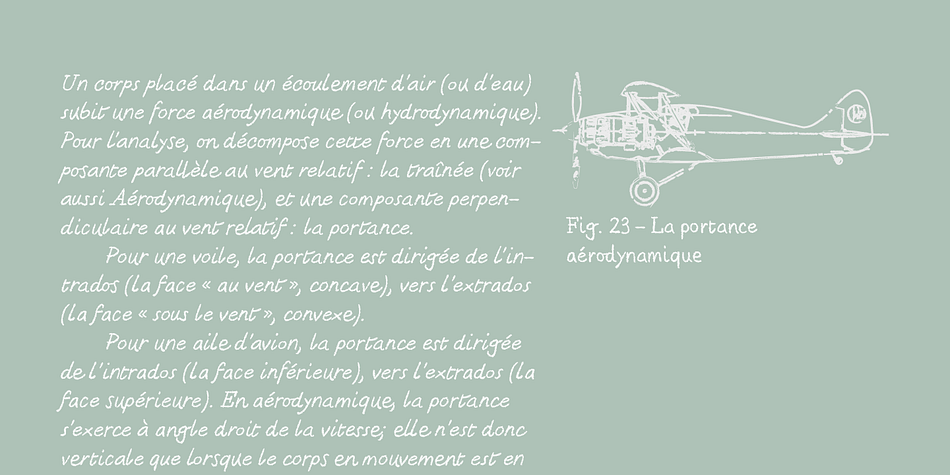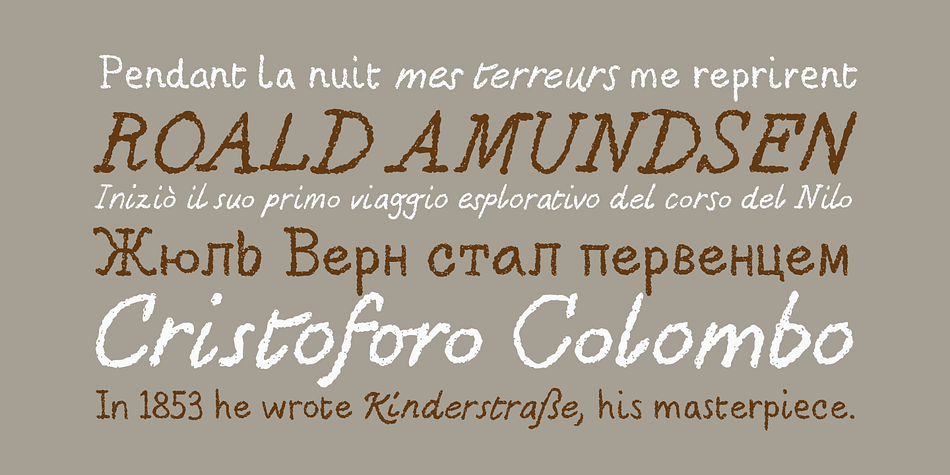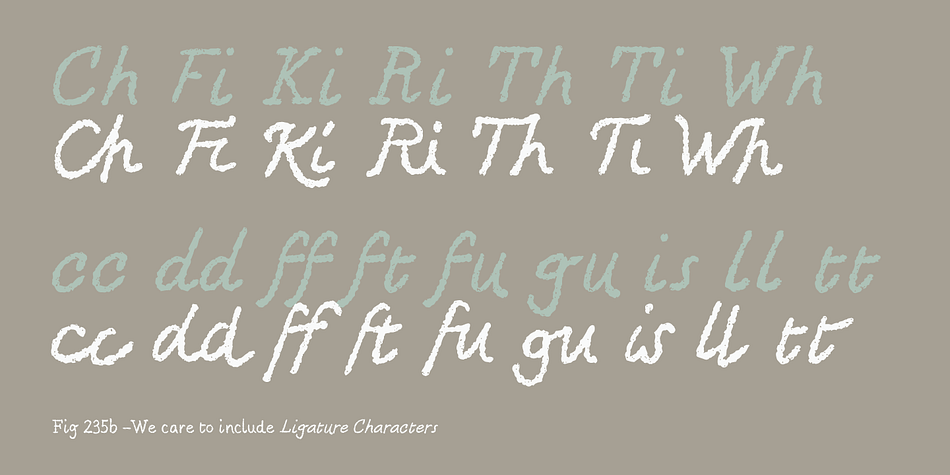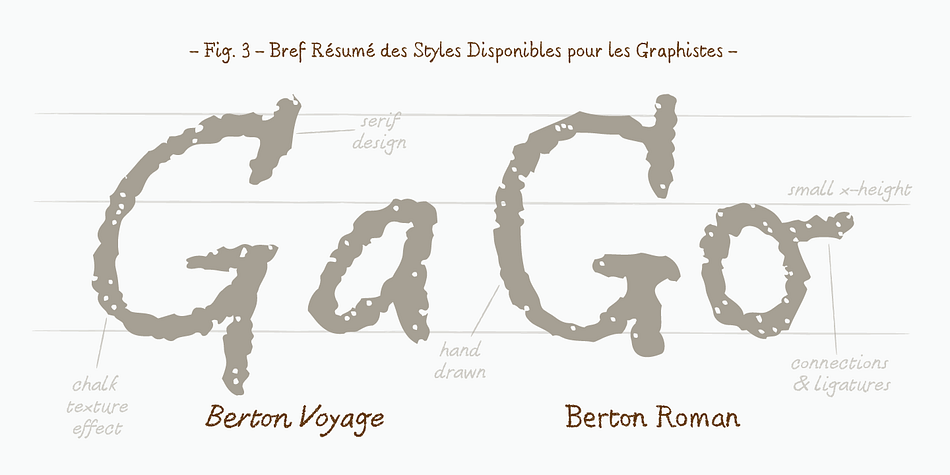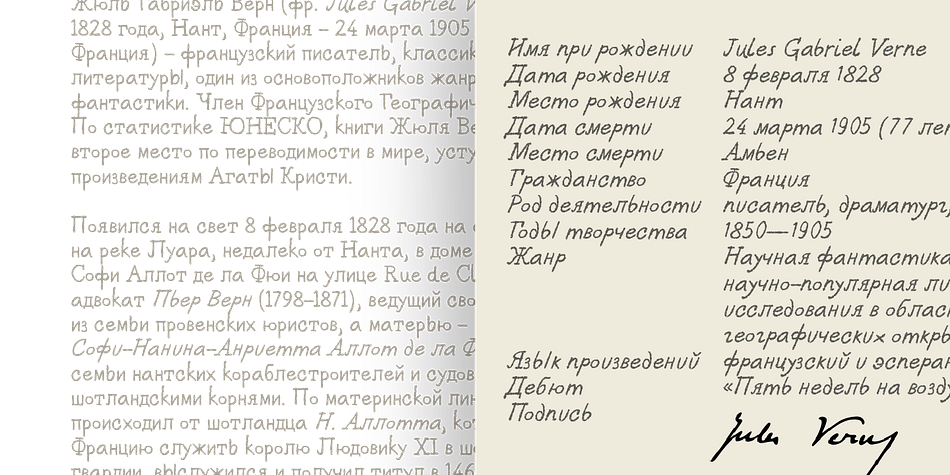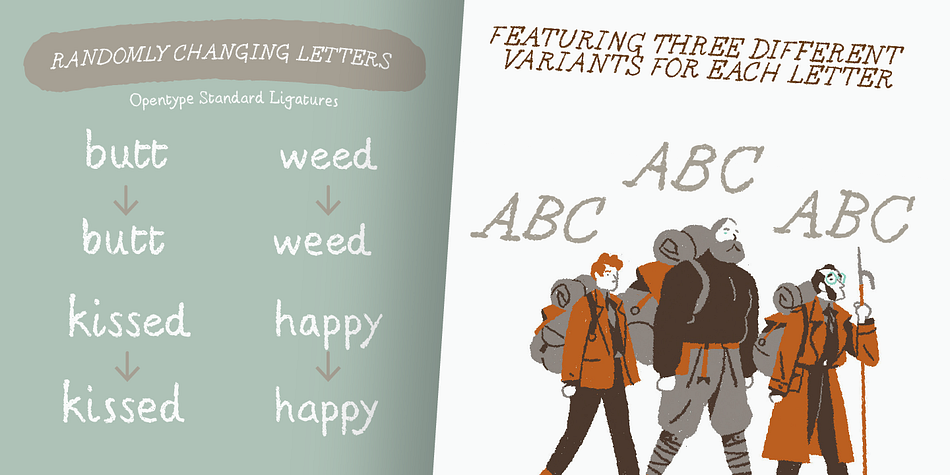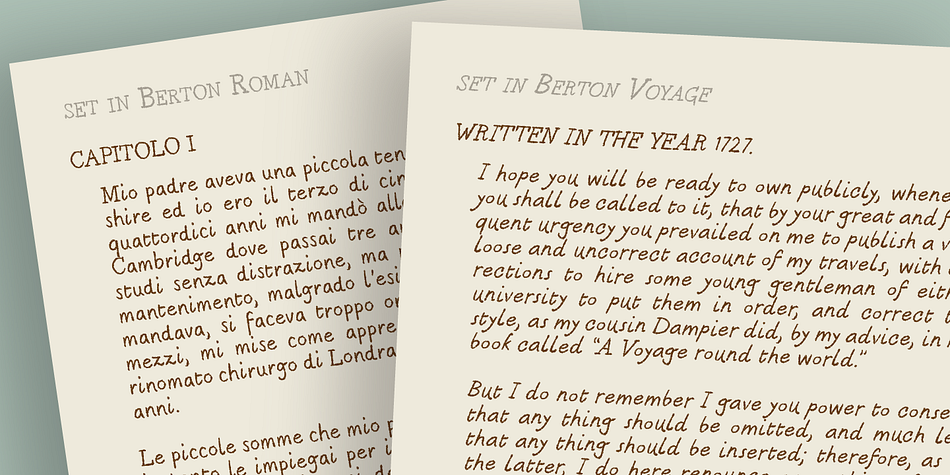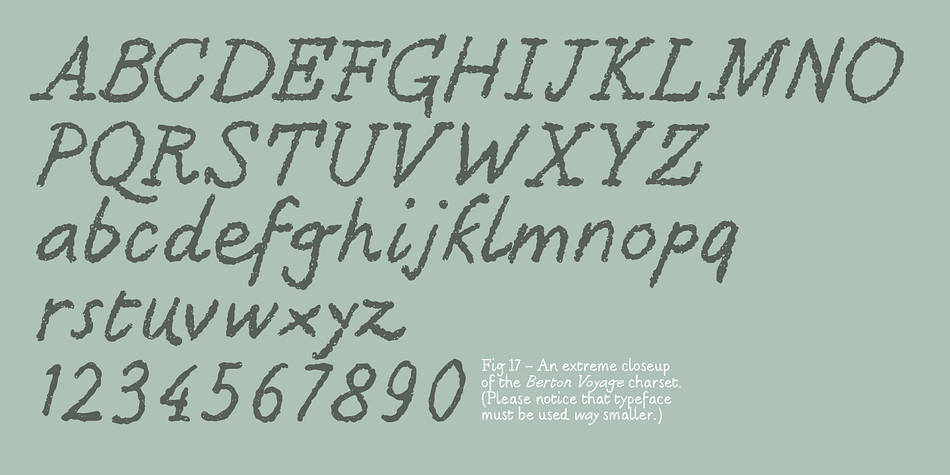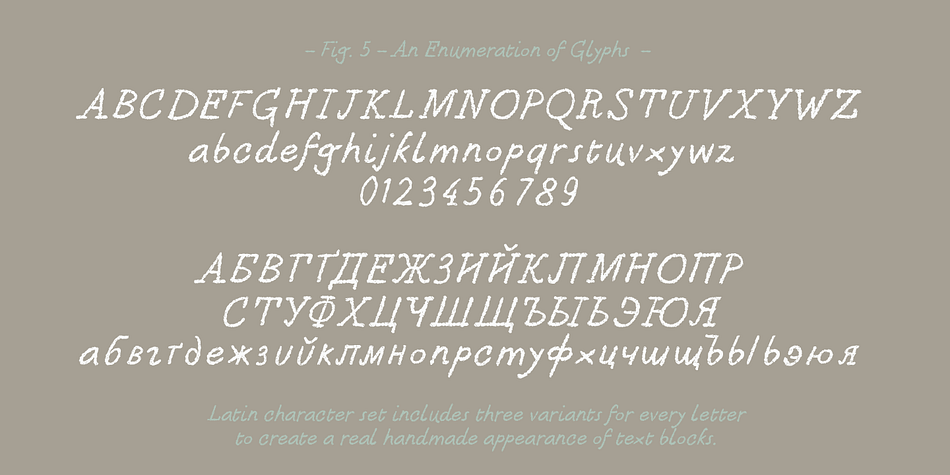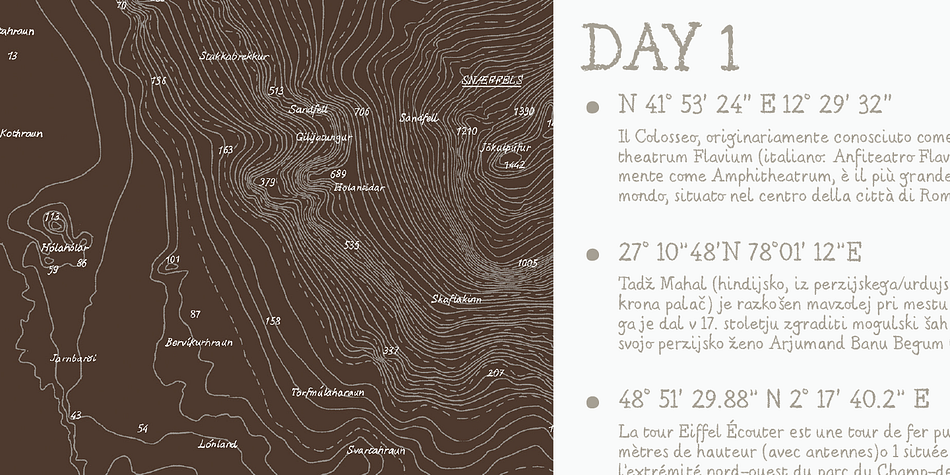
Designed by Matteo Berton, Berton is a hand drawn font family. This typeface has two styles and was published by Zetafonts.
Berton - the third in the Zetafonts Signature artist-designed fonts - was hand drawn by italian illustrator Matteo Berton and lovingly digitized by Zetafonts to be used as main lettering font of the graphic novel “Voyage au Centre de la Terre” edited by La Pasteque, a lavishly illustrated re-telling of the classic Jules Verne tale.
Born to complement the artist unique digital painting style, Berton follows the Didot proportions with handmade quirks and differences, made natural by the programmed randomization of three different sets of alphabetic glyphs, to give a consistent and realistic handmade look. The chalky, rough finish is designed mainly for small point text size, to give a natural appearance to small texts, captions and any time you need hand-written notes to look realistic, elegant and readable.
The typeface covers over 70 languages using latin alphabet, and includes also cyrillic glyphs for basic Russian coverage. It comes in two weights, both with multiple character sets, alternating thanks to open type ligatures.